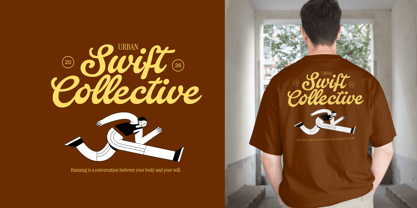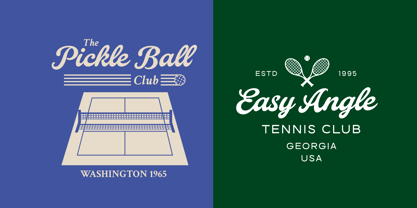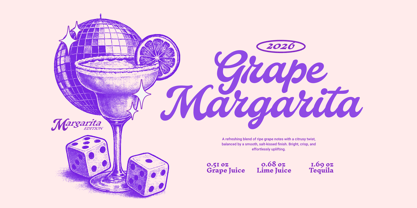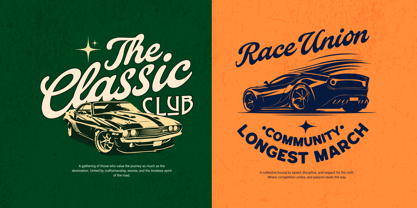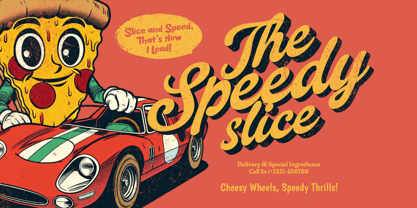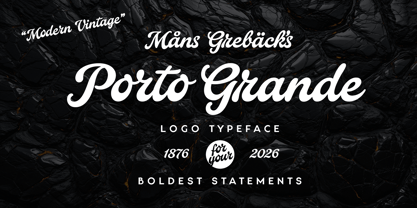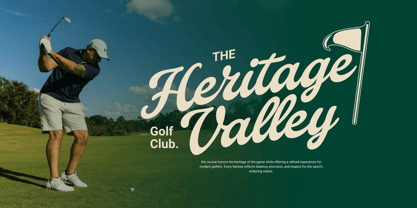
Porto Grande
by Mans Greback
The Porto Grande Font Family was designed by Måns Grebäck and published by Mans Greback. Porto Grande contains 1 styles. More about this family
Porto Grande is a modern vintage script with a confident, flowing voice. It blends classic sign painting character with a contemporary smoothness, giving the lettering a familiar feel without leaning too far into nostalgia. The strokes are bold and rounded, with generous curves and steady rhythm. Letter connections are lively but controlled, allowing words to move naturally across the page while staying highly readable. There is a sense of tradition in the shapes, paired with a clean finish that keeps the look current and adaptable. Porto Grande was drawn with logo lettering in mind, where personality and clarity need to coexist. It carries the weight of heritage lettering while remaining flexible enough to feel at home in modern visual identities. The font is built with advanced functionality and guaranteed top-notch quality, containing stylistic and contextual alternates, ligatures and more automatic and manual features; all to give you full control and customizability. It has extensive lingual support, covering all Latin-based languages, from North Europa to South Africa, from America to South-East Asia. It contains all characters and symbols you'll ever need, including all punctuation and numbers. Designed by Måns Grebäck, Porto Grande reflects an ongoing interest in timeless letterforms and their place in contemporary design. The goal was to create a script that feels established and trustworthy, yet still fresh enough to speak clearly in today’s visual landscape.
Designers: Måns Grebäck
Foundry: Mans Greback
Måns Grebäck is a type designer and font creator specializing in script typography, but with a portfolio containing a vast selection of styles. Typefaces from Måns Grebäck are used as company and product logotypes, as well as headlines and in advertisement by a wide range of industries world-wide. Founded by Måns Grebäck in 2010, Mans Greback AB originally went under the name of Mawns Fonts and later Aring Typeface AB. While the foundry has its seat Örebro, Sweden, Måns also lives in Portugal. The Premium Foundry page can be viewed Here.